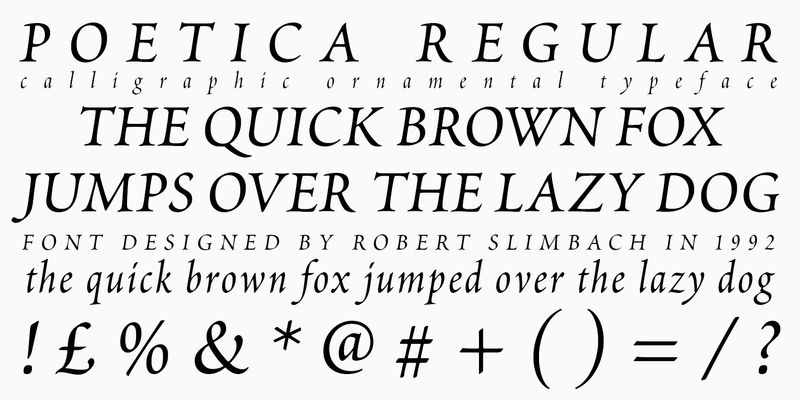
Poetica
Poetica was designed in 1992, and is the first Adobe Originals script typeface; modeled on chancery handwriting scripts developed during the Italian Renaissance. This elegant style of writing formed the basis for italic typefaces and for modern calligraphy. Adobe designer Robert Slimbach captured the vitality and grace of the chancery writing style in this new series of designs. Characteristic of the chancery hand, Poetica contains alternate swash characters, ligatures, and ornamental designs to embellish an otherwise formal script. To represent the variety of form and richness of this hand, Slimbach created alternate alphabets and character sets that include a diverse collection of letterforms.